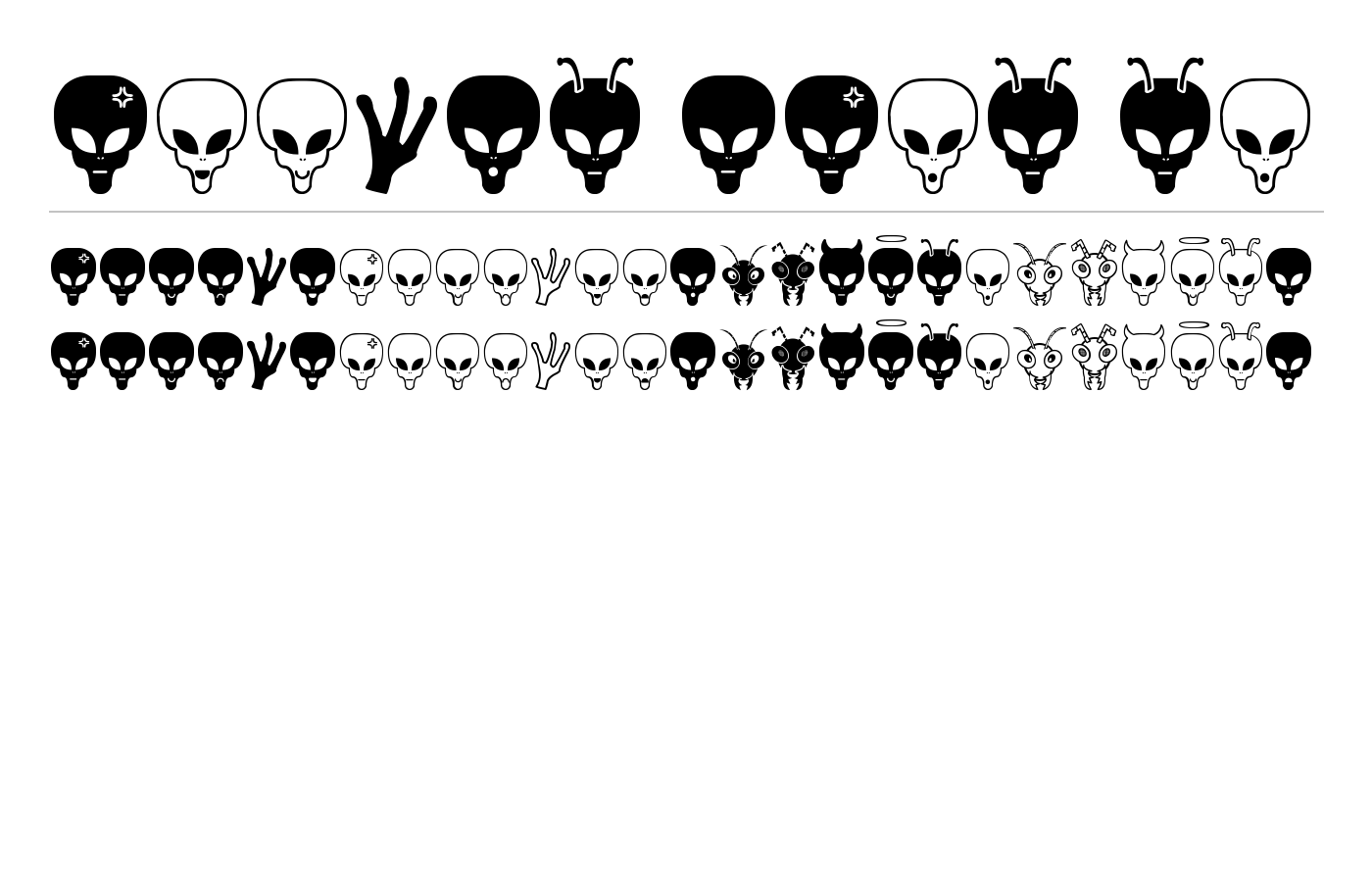
Aliens Bats St Font is a playful symbol typeface featuring bold, stylized alien and insect icons with smooth, rounded edges that create a quirky and fun vibe. Its compact, uniform shapes work well for creative projects seeking a sci-fi or fantasy flair, perfect for posters, games, or themed branding that needs a unique and eye-catching visual twist. This font’s whimsical character makes it a great choice for informal and imaginative designs rather than traditional text use.
Aliens Bats St Font
About Aliens Bats St Font
| Font family | Aliens Bats St Font |
| Designer | This font is an original work of southype dot com |